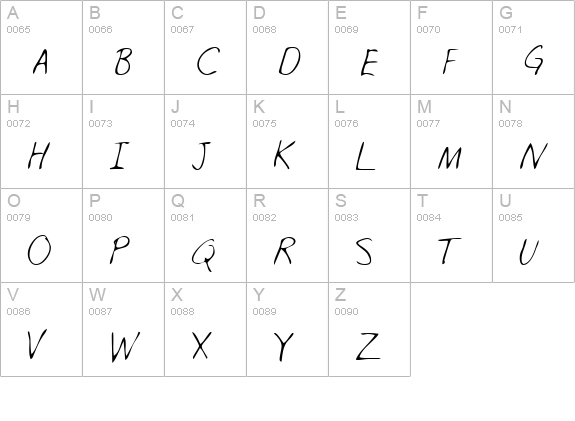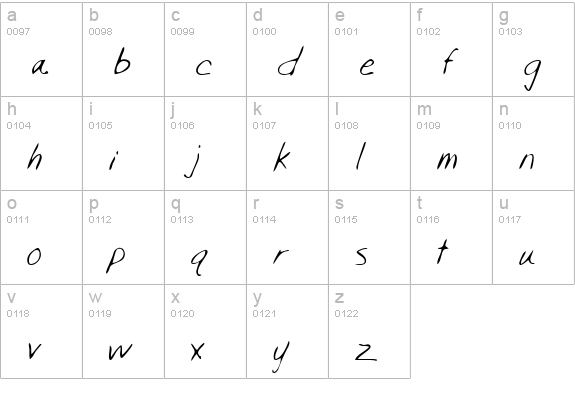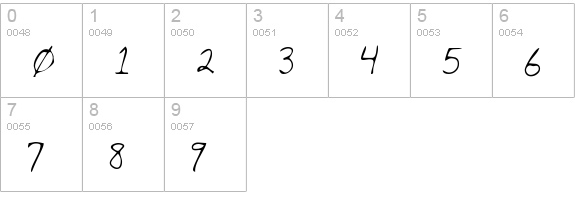
NicolasHand Regular Font Details
NicolasHand Regular is the standard, neutral variant in the NicolasHand typeface family \xE2\x80\x94 well suited to general body text, paragraphs, and standard typographic work.
NicolasHand Regular font is a charming and versatile typeface that exudes a sense of creativity and personality. With its smooth lines and elegant curves, this font is perfect for adding a touch of sophistication to your designs. Whether you're working on a project that calls for a modern and stylish look or one that requires a more classic and timeless feel, NicolasHand Regular font has you covered. The best part? NicolasHand Regular font is available for free download at FontsMarket.com. This means that you can easily add this beautiful font to your collection without having to spend a dime. So why wait? Head over to FontsMarket.com today and download NicolasHand Regular font to elevate your designs to the next level.